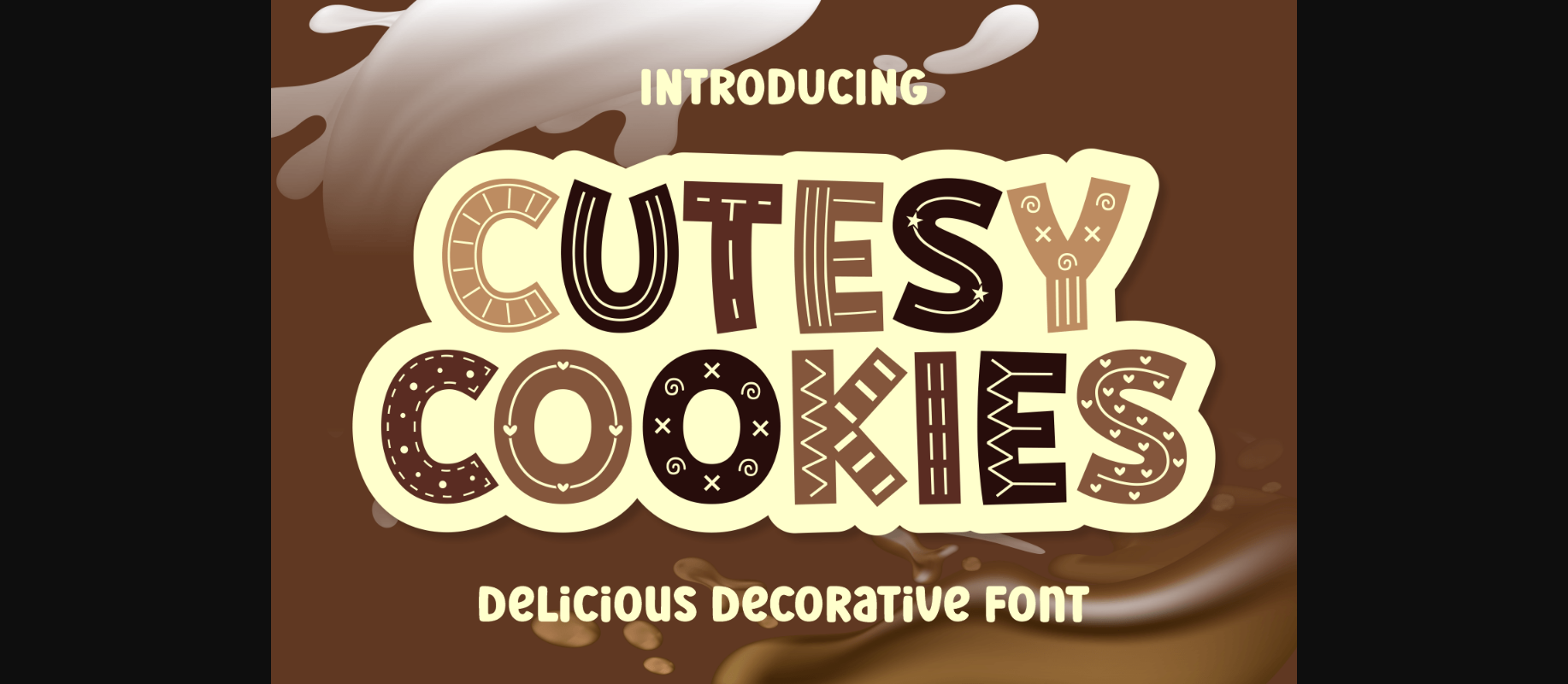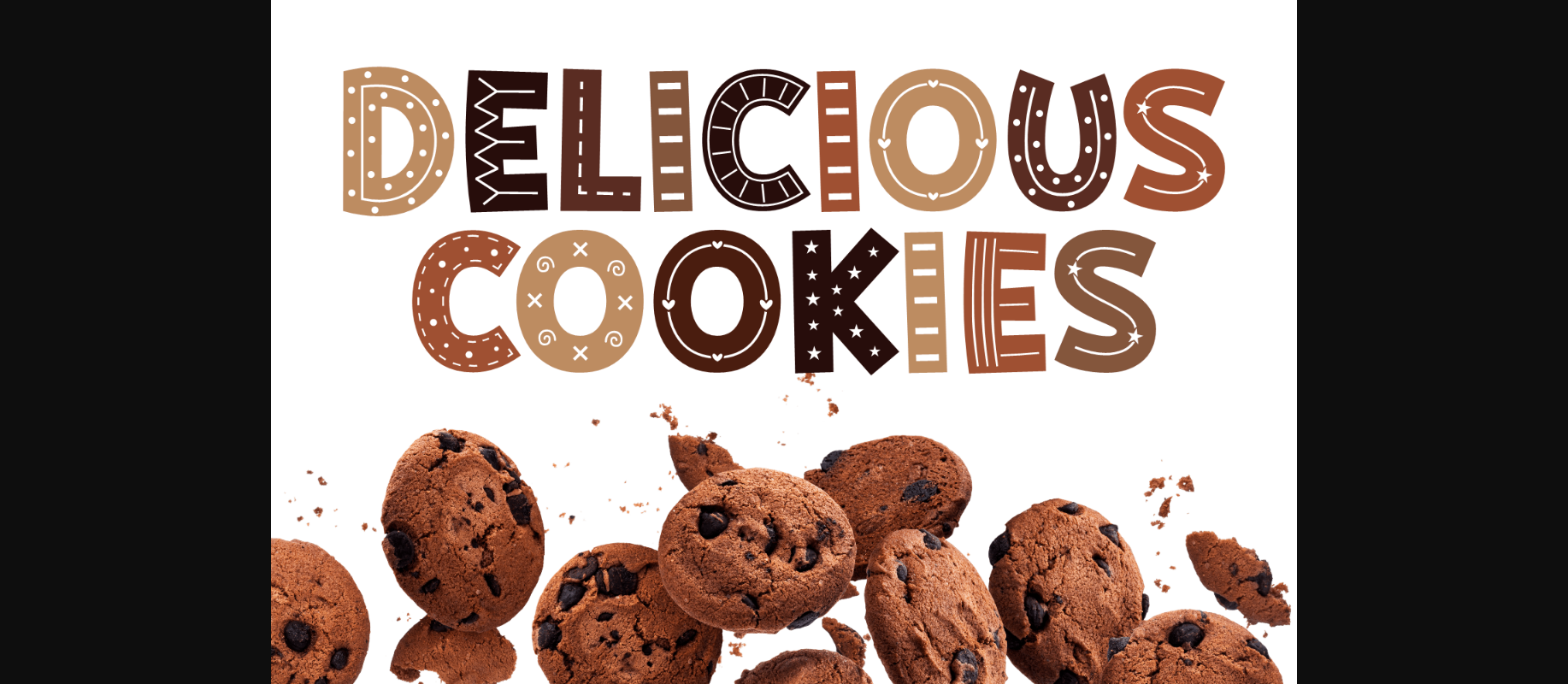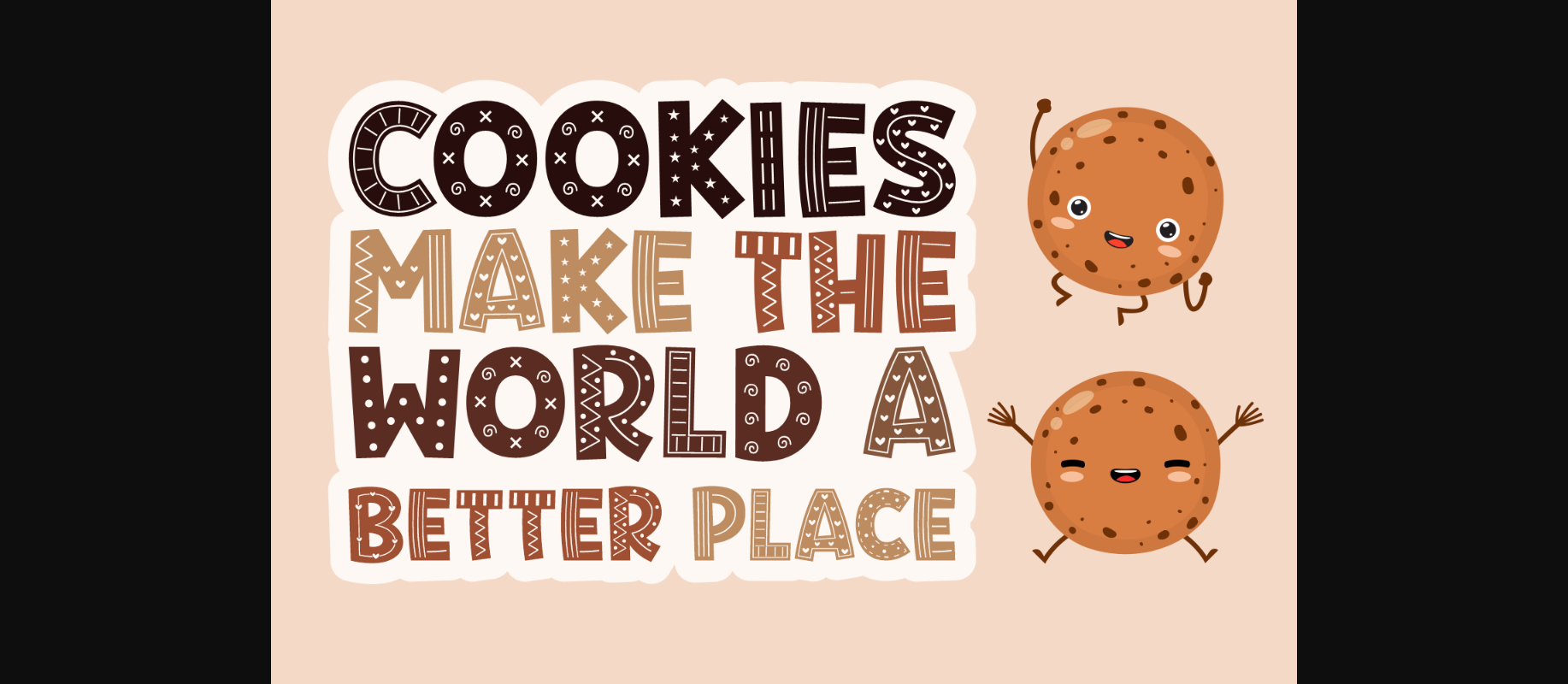
About Cutesy Cookies Font
Cutesy Cookies is a joyful and charming decorative font. These lovely characters feature cute stars, hearts, swirls, and more. Use them to embellish your craft products, logos, advertising materials, and many others!